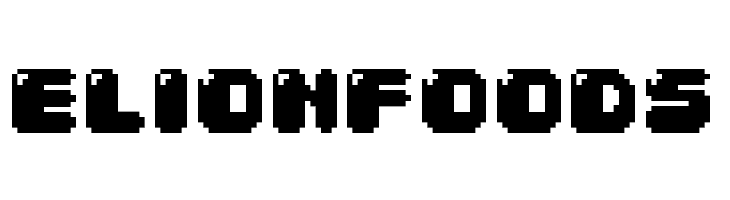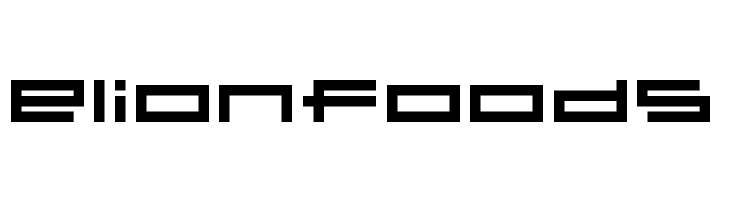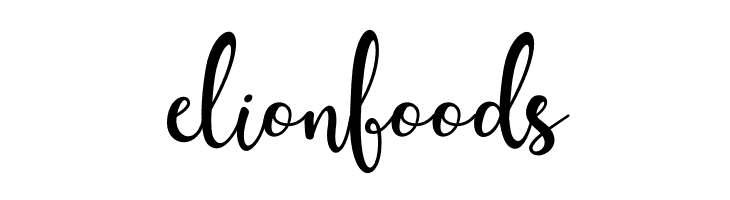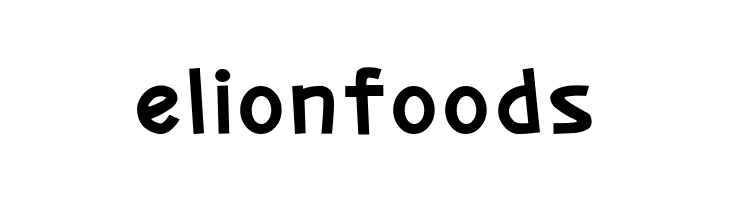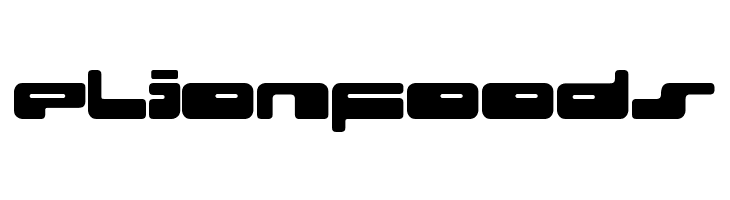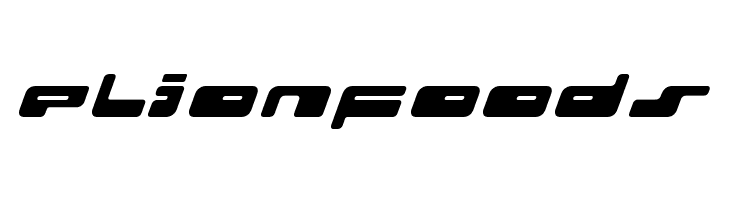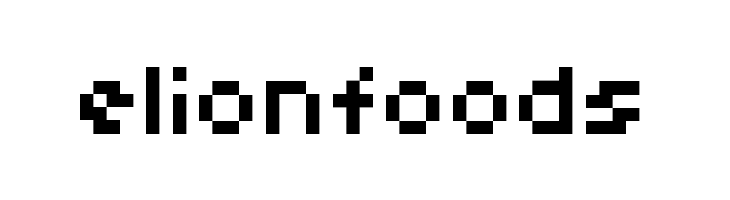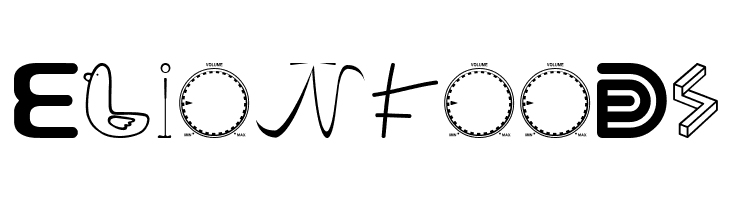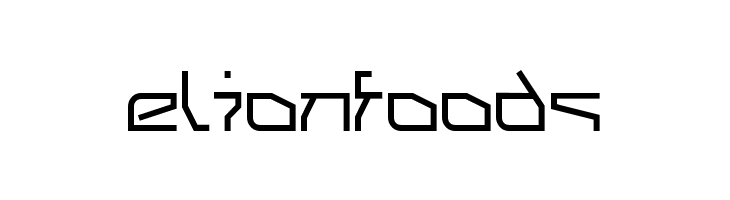
• 01FontremixType38
A creative and eclectic display typeface with diverse, artistic character designs.
• 01tama
• 02.10 fenotype
A bold, futuristic font with rounded edges and geometric shapes.
• 02.10ital fenotype
A bold, futuristic font with geometric shapes and smooth curves, slightly italicized for a dynamic look.
• 02FontremixType36
A decorative and eclectic font with unique, artistic characters and symbols.
• 03.20 1
• 04
A flowing, cursive script font with elegant loops and swashes.
• 04b 30
• 04b 31
• 04b_03